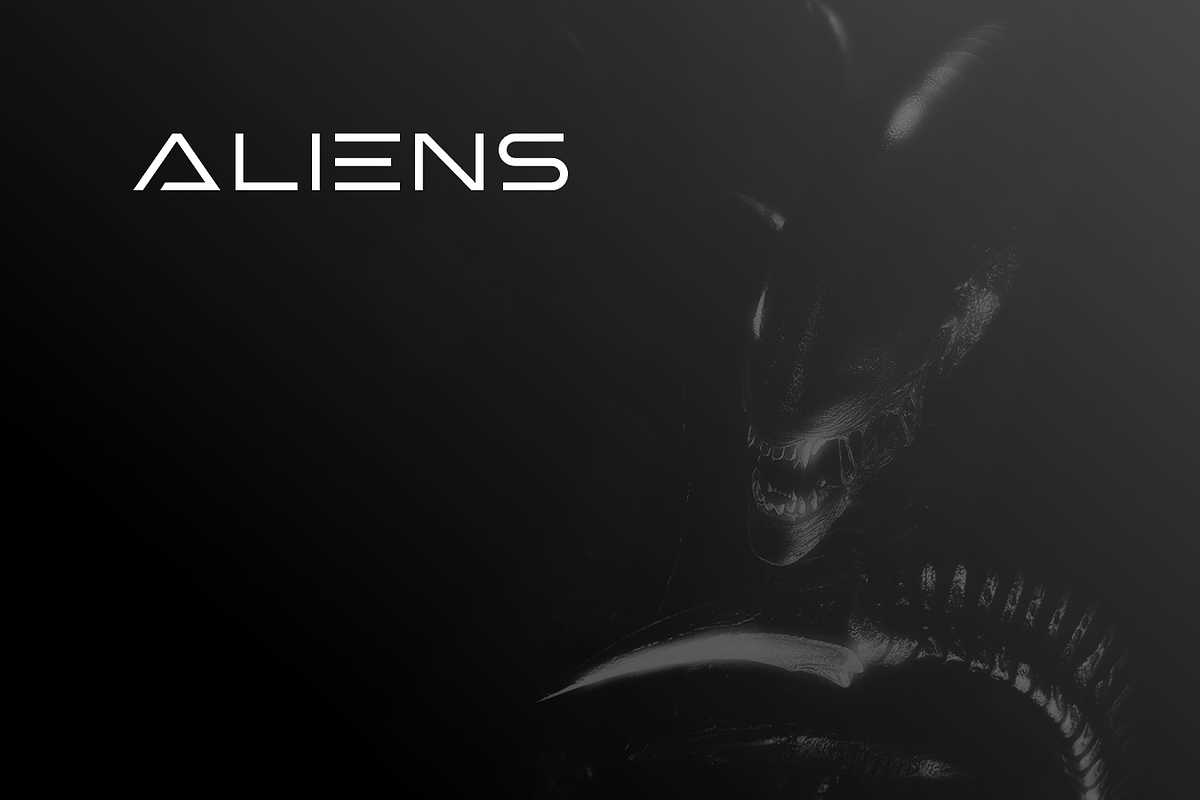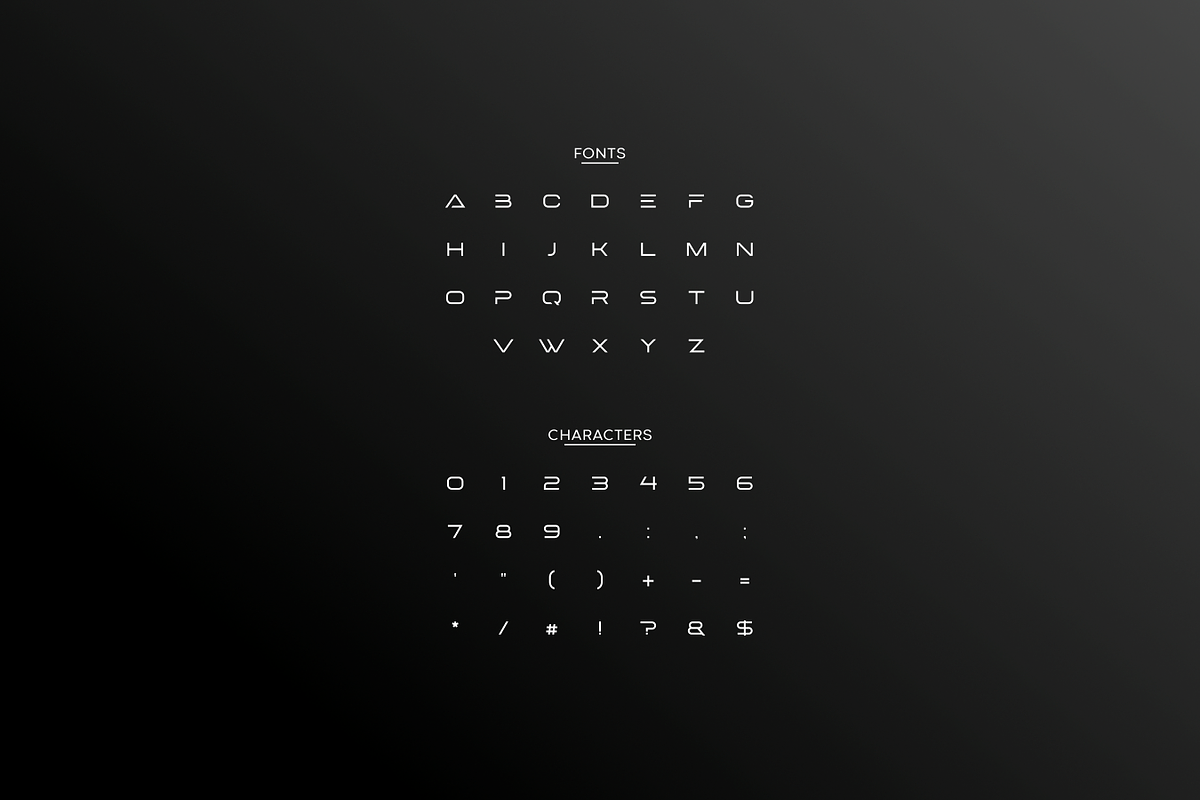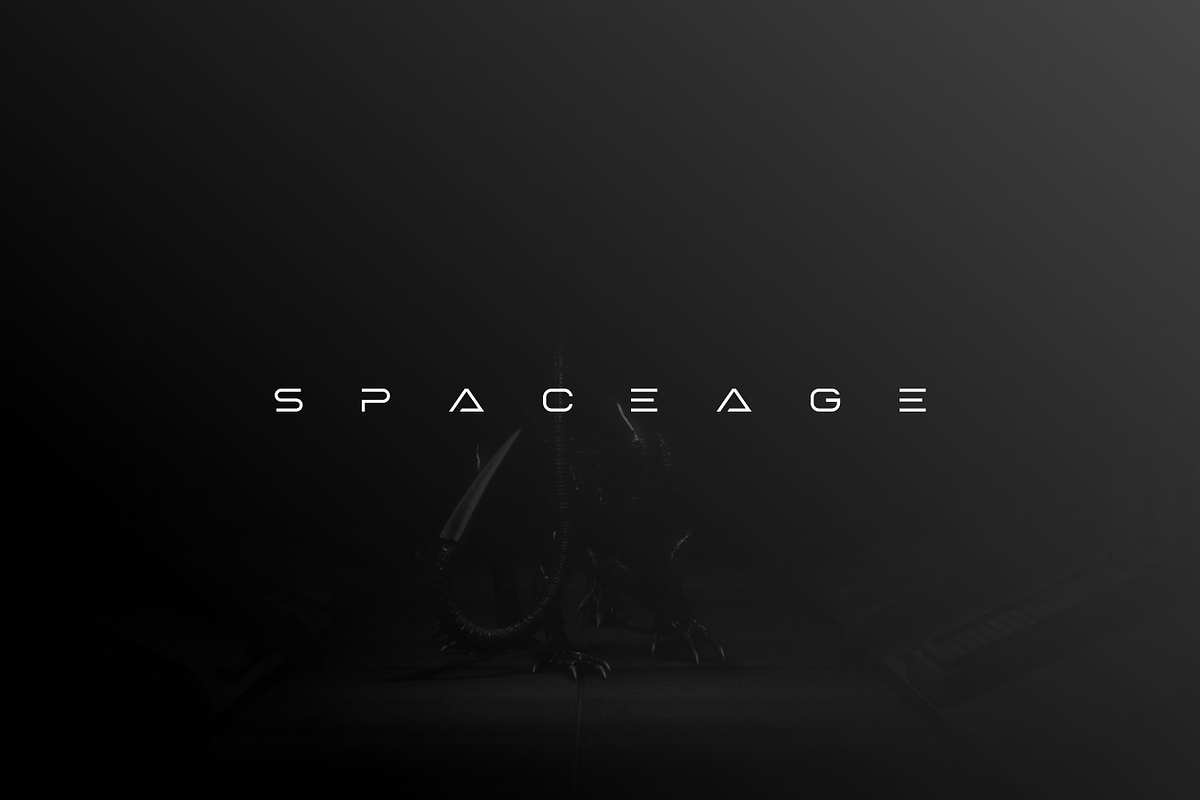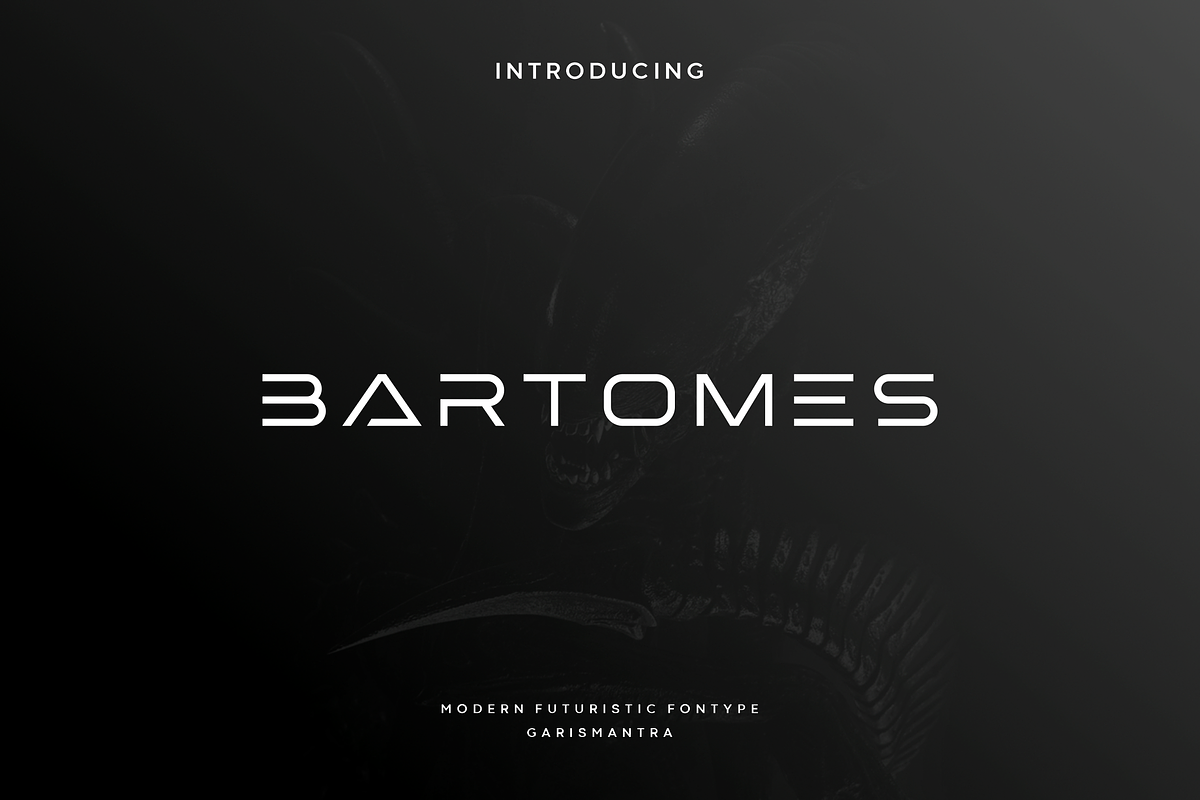
Bartomes
Bartomes font creates futuristic hi-tech atmosphere and style. It's good looking as header and as text both. Use it in your projects in such areas as robots & androids, hi-tech, future, virtual reality, space, sport and many others.